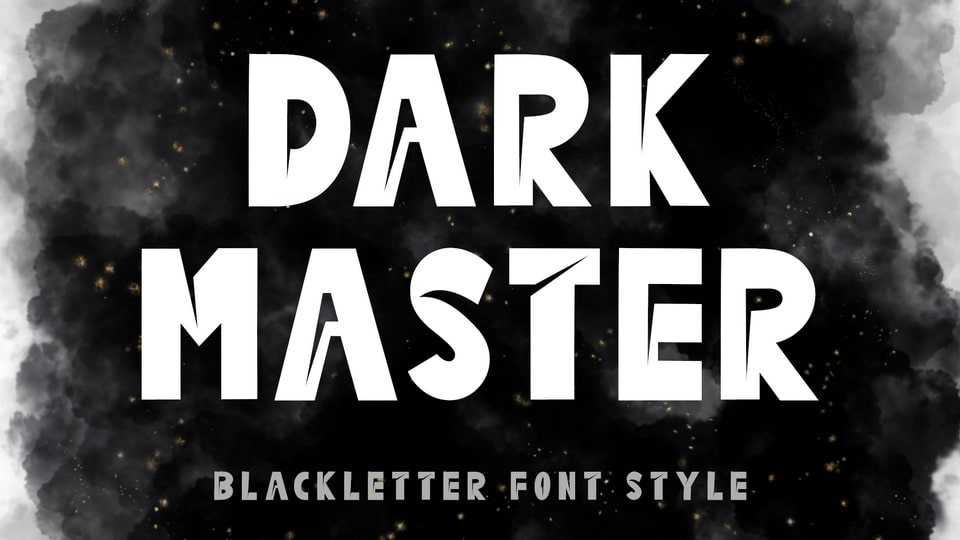
Download Dark Master font, a bold and modern blackletter typeface. Very suitable for posters, prints, banners, branding, stickers, logos, movie titles, book titles, vacations, adventures, fashion, photography and others.